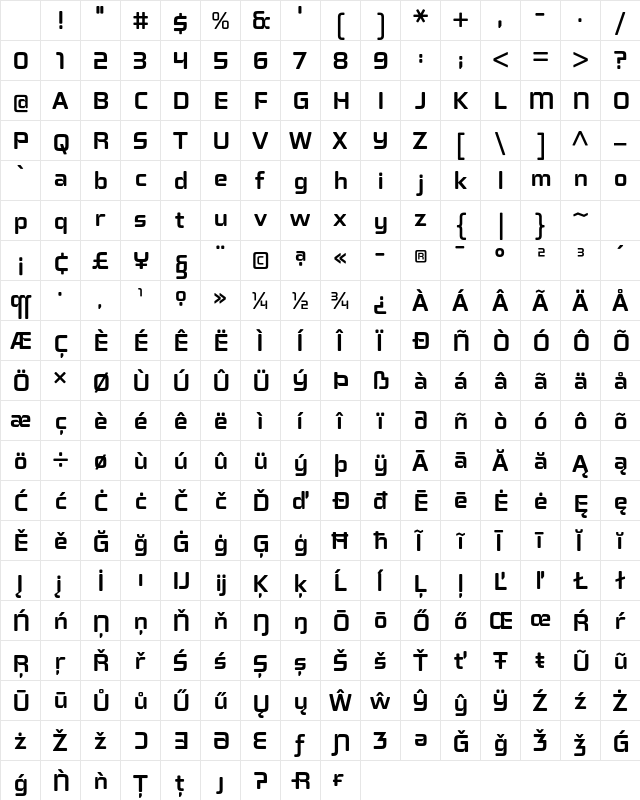
Complete Alfaqix Algorithm SemBd Regular glyph index. Displaying only characters natively supported by Alfaqix Algorithm SemBd Regular font.
Alfaqix Algorithm SemBd is a composed and adaptable typeface that performs quietly and consistently across a wide range of design contexts.